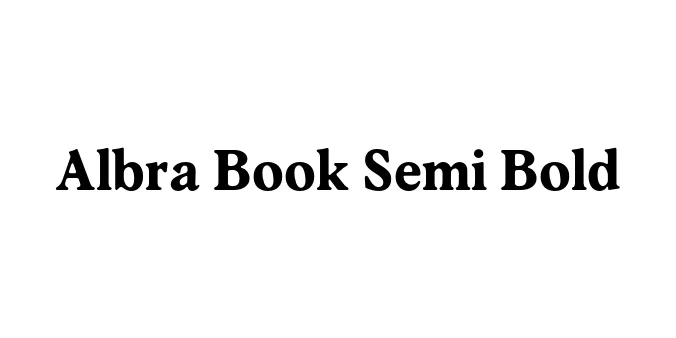
Albra Book Semi Bold
Designed by BumbumType (Zhalgas Kassymkulov)
Albra Book Semi Bold is a sophisticated serif typeface that exemplifies the intersection of classic elegance and modern digital design. Created by the boutique foundry BumbumType, this specific weight offers a refined balance, featuring high-contrast strokes and expressive, fluid curves that command attention without sacrificing readability. Its sharp serifs and unique personality make it an excellent choice for designers looking to infuse their projects with a sense of luxury and timelessness.
This typeface is part of the larger Albra collection, which was engineered to perform exceptionally well across both print and digital mediums. Albra Book Semi Bold is particularly effective for editorial layouts, high-end branding, and premium packaging where a distinctive typographic voice is required. Its versatility allows it to function as a striking headline font while maintaining clarity in shorter blocks of body text, making it a staple for fashion and lifestyle communication.
Albra Book Semi Bold Best Uses
Perfect for high-end magazine layouts and typographic spreads.
Ideal for creating sophisticated logos and premium brand identities.
Adds a touch of elegance to luxury product labeling and box designs.
Great for eye-catching headlines and hero sections on lifestyle websites.